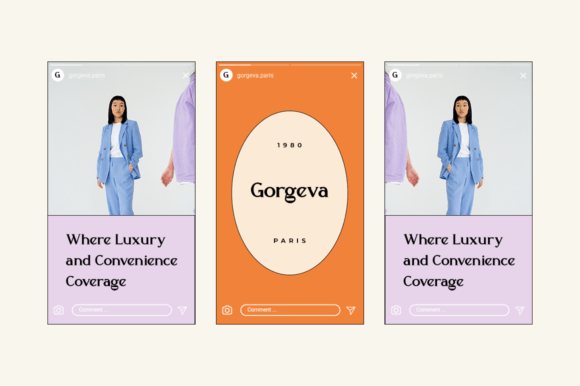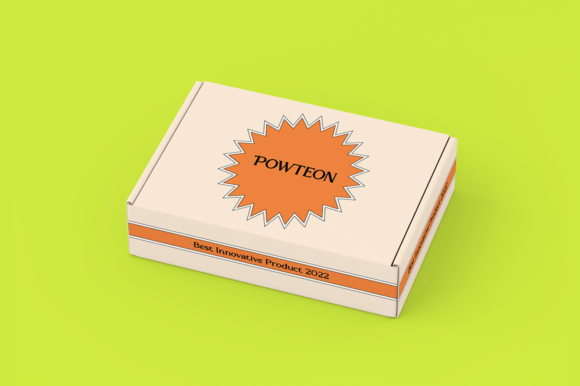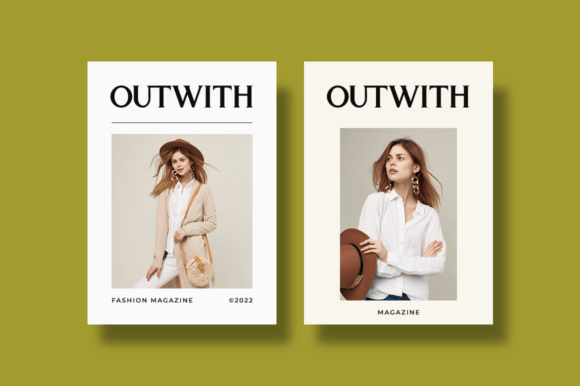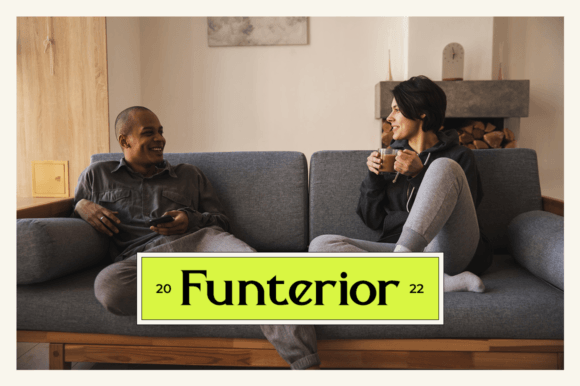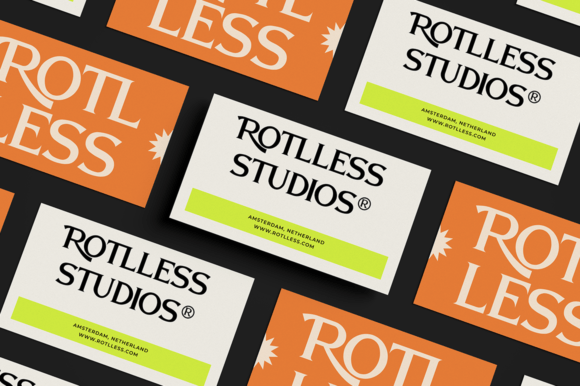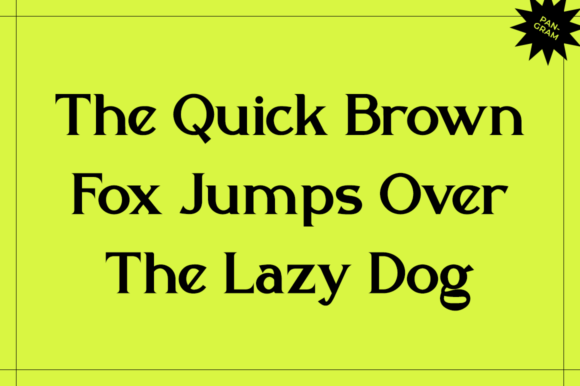
The Font that Stole My Heart: A Deep Dive into Fonterval
I still remember the design project that led me to Fonterval. I was working on a branding project for a luxury skincare brand, and I was struggling to find the perfect font that exuded elegance and sophistication. The client was particular about the font being clean, neat, and highly legible. After hours of scouring through font libraries, I stumbled upon Fonterval, and it instantly became my go-to font. In this article, I’ll share my love for Fonterval, its features, and how to make the most of it in your designs.
An Honest Review of Fonterval
What I Love About Fonterval ✨
- ✅ Elegant and sophisticated design
- ✅ Thin lettering with distinct serifs
- ✅ Versatile and suitable for various design projects
- ✅ Neat and clean style that adapts well to different contexts
- ⚠️ Limited availability of condensed or expanded styles
- ⚠️ Some users may find the font too delicate for certain design applications
The Story Behind Fonterval
Although I couldn’t find any information on the exact design process behind Fonterval, I imagine it was created with the intention of crafting a font that exudes elegance and sophistication. Perhaps the designer, fueled by a passion for typography and a love for luxury brands, set out to create a font that would become a go-to choice for designers seeking a refined and clean aesthetic.
Q: What is the x-height of Fonterval?
A: The x-height of Fonterval is approximately 0.52, which is relatively high compared to other serif fonts. This contributes to its legibility and elegance.
Q: Is Fonterval suitable for body text?
A: Yes, Fonterval can be used for body text, especially in digital designs where legibility is crucial. However, it may be too delicate for print designs or large blocks of text.
Q: Is Fonterval a Unicode font?
A: Yes, Fonterval is a Unicode font, supporting a wide range of characters and languages.